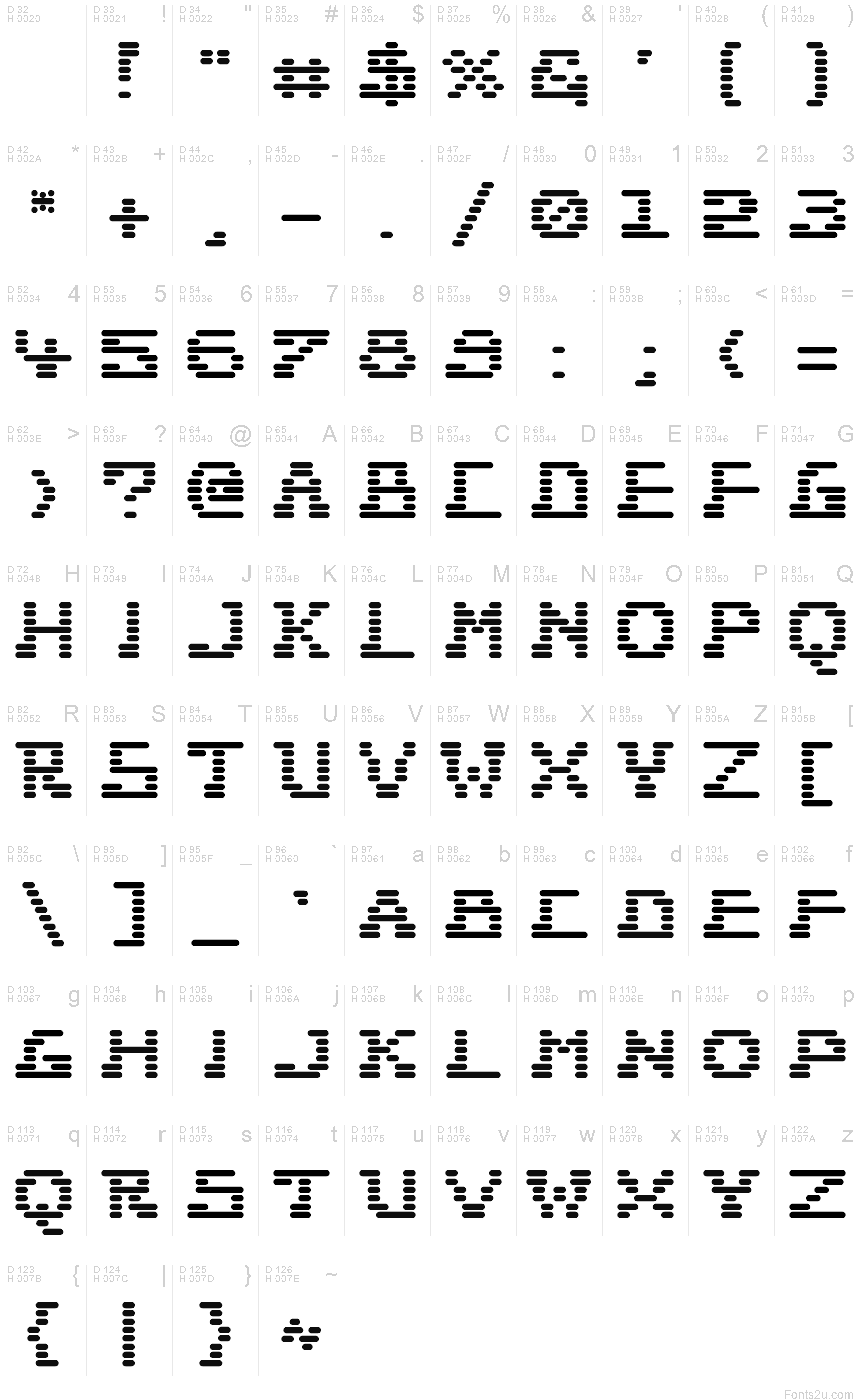
JVNE Wopper'83 Regular 字体
JVNE Wopper'83 Regular
Jvne77
Wopper'83 is a personal rendition of the computed typeface created for the titles of the classic rad movie "Wargames".
Johnny Feron/Jvne77
JVNE Wopper'83 was built with FontStruct